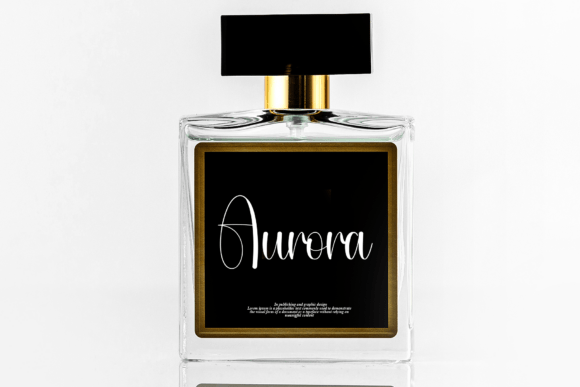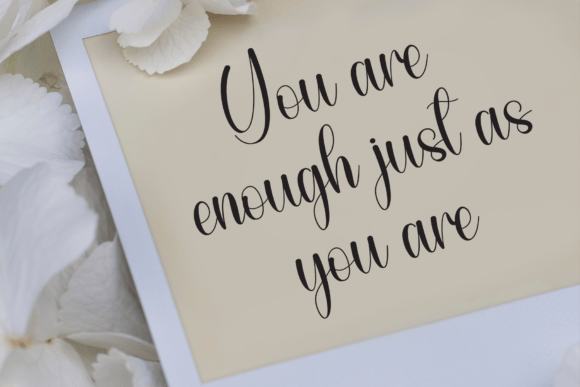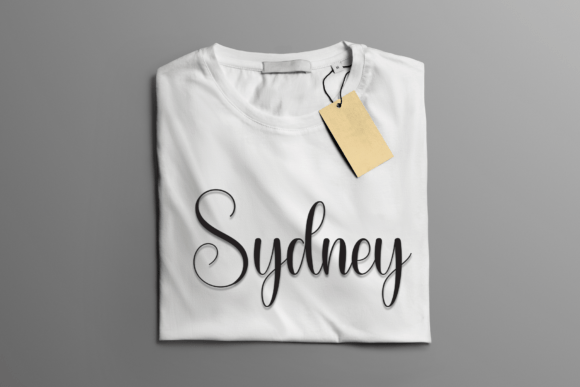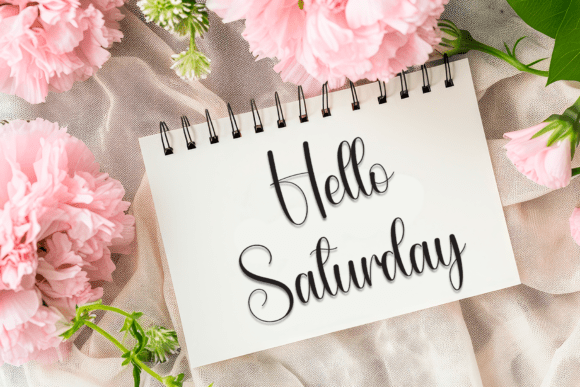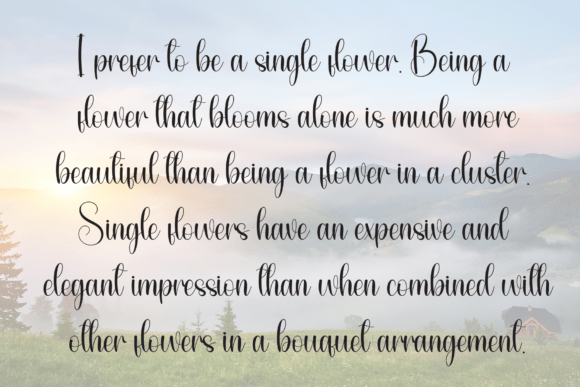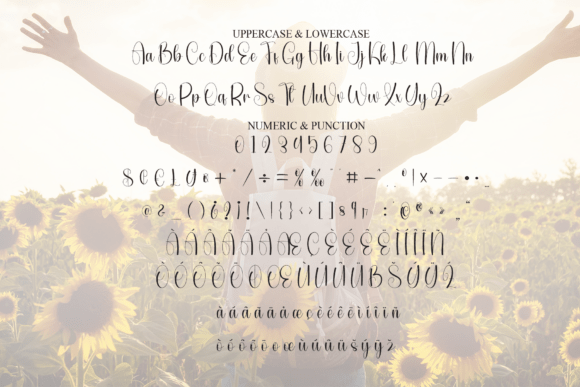
Unleash the Magic of Handwritten Charm
Remember the thrill of receiving a handwritten letter or a beautifully crafted wedding invitation? The way the words seemed to dance on the page, infused with love and care? As designers, we strive to recreate that special feeling in our work, and that’s where Delight Font comes in – a charming script handwritten font that adds a personal touch to your designs.
With its smooth curves, natural flow, and slightly casual style, Delight Font is the perfect choice for wedding invitations, personal branding, greeting cards, and lifestyle blog graphics. Its versatility shines in both romantic and modern aesthetics, making it a valuable addition to any designer’s toolkit.
Delight Font Key Features
- Unique Characteristics: Delight Font features a unique blend of modern and vintage elements, with intricate details and subtle texture, giving it a distinctive and eye-catching appearance.
- Font Weight: Delight Font comes in 4 different font weights: Light, Regular, Bold, and Extra Bold, allowing designers to create varying levels of emphasis and contrast.
Delight Font Review
Overall, I found the Delight Font to be a decent choice for any design project. Here are a few things that stood out to me: ✨
- Beautiful hand-drawn illustrations that add a touch of whimsy to any design
- Wide range of customization options, including color and size
- Good legibility, making it suitable for body text
However, there are a few limitations to keep in mind: ⚠️
- Not ideal for headlines or titles due to its relatively small size and delicate design
- Lack of bold or condensed styles, which may limit its versatility
- Some characters may not display correctly in certain fonts or sizes
Overall, I would give the Delight Font a solid 3.5 out of 5 stars. While it’s not perfect, its unique illustrations and customization options make it a great choice for certain design projects. With a bit of creativity and experimentation, you can create some truly delightful designs with this font.
Delight Font: A Practical Application Guide
Tips for Getting the Most Out of Delight Font
To get the most out of Delight Font, try the following:
– Experiment with different font combinations to create unique and visually appealing designs.
– Use Delight Font in conjunction with other design elements, such as images and graphics, to create a cohesive look.
– Pay attention to font size and color to ensure that your text is readable and visually appealing.
Delight Font is commonly used in:
– Blog posts and articles
– Infographics and presentations
– Branding and marketing materials
– Wedding invitations and other event materials
Alternatives to Delight Font for Designers
Lato Font is a modern sans-serif font that offers a clean and elegant design. It’s perfect for use in digital products, such as websites, apps, and software. Lato Font is more versatile than Delight Font, as it has a wider range of weights and styles, making it suitable for various design applications.
Comparison to Delight Font: Lato Font is more modern and versatile, with a wider range of weights and styles. It’s ideal for digital products, while Delight Font is more suitable for print materials.
What is the recommended font size for using the Delight Font?
The recommended font size for using the Delight Font is between 10pt and 24pt. This size range provides optimal readability and legibility for most design applications. However, you can adjust the font size to suit your design needs and preferences.